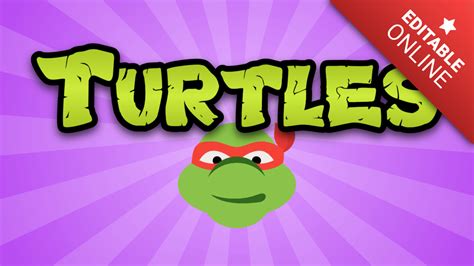
Ninja Turtle Font Generator. Web note of the author. Web teenage mutant ninja turtles logo generator a teenage mutant ninja turtles logo maker based on this xkcd comic.
Teenage mutant ninja turtles, also known as tmnt, is a famous kids cartoon and movie series. This thick, distressed typeface is based on the popular clasic teenage mutant ninja turtles. Web note of the author. Web teenage mutant ninja turtles logo generator a teenage mutant ninja turtles logo maker based on this xkcd comic.
Teenage mutant ninja turtles, also known as tmnt, is a famous kids cartoon and movie series. Web teenage mutant ninja turtles logo generator a teenage mutant ninja turtles logo maker based on this xkcd comic. Teenage mutant ninja turtles, also known as tmnt, is a famous kids cartoon and movie series. Web note of the author. This thick, distressed typeface is based on the popular clasic teenage mutant ninja turtles.